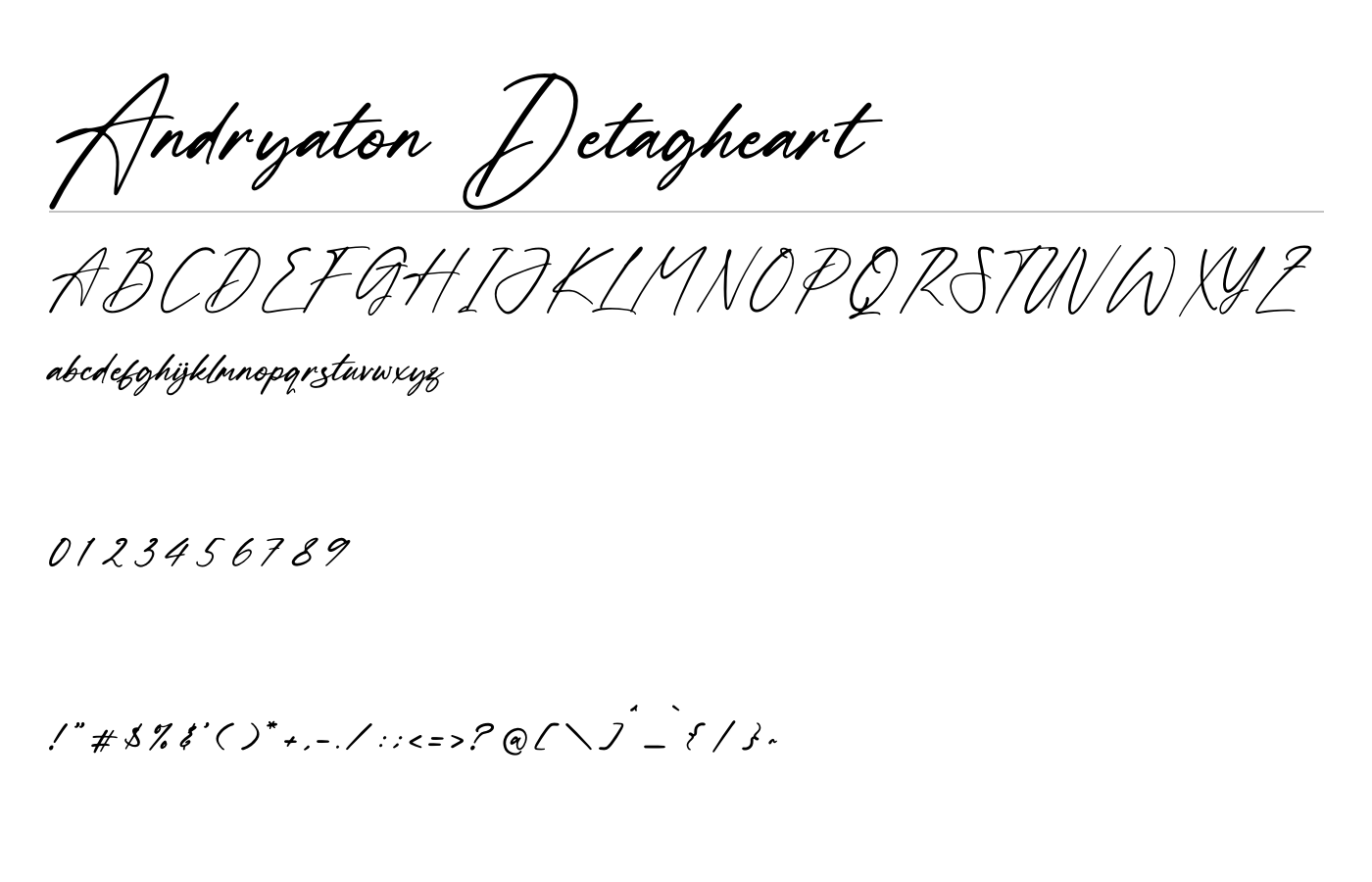
Andryaton Detagheart is a delicate, script-style font that features a handwritten, elegant flow with a light, airy stroke weight. Its slender, smooth lines and unique letterforms create a personal and sophisticated feel, making it ideal for invitations, branding, and stylish headlines where a graceful and intimate touch is desired. This font works well for designs that want to convey charm and elegance with a modern, handwritten look.